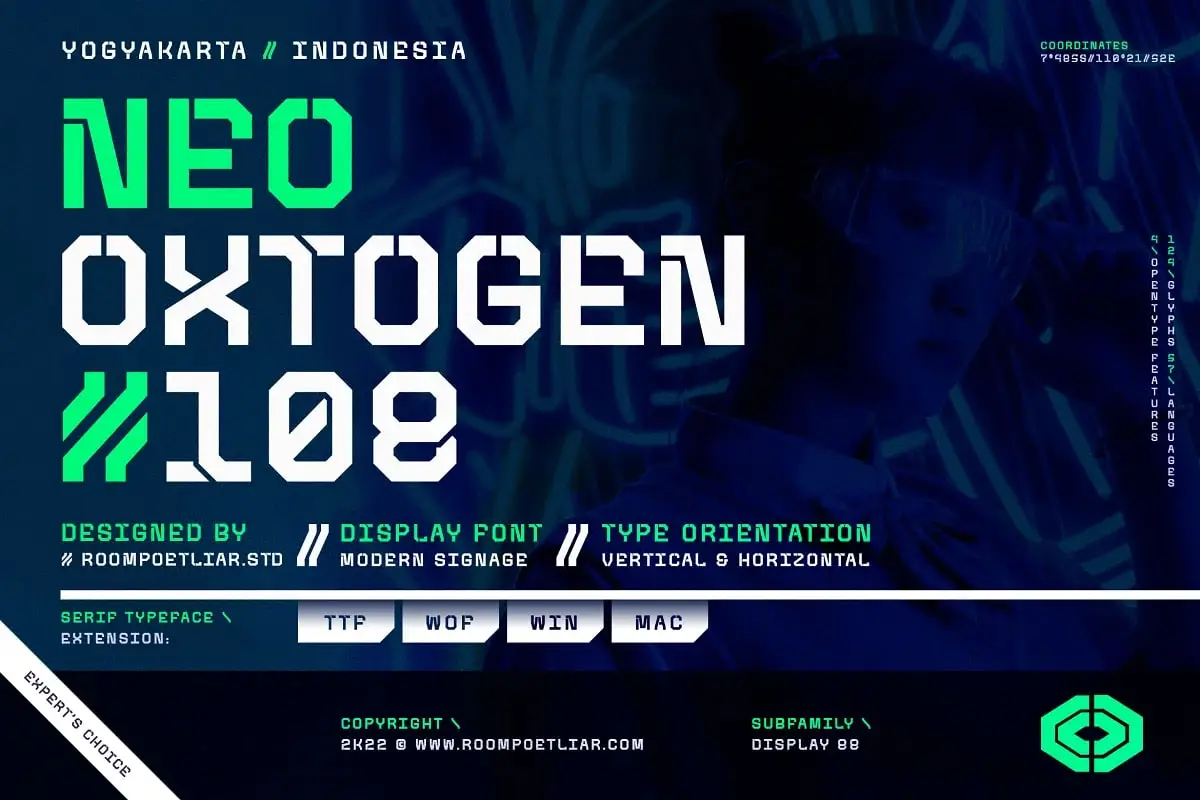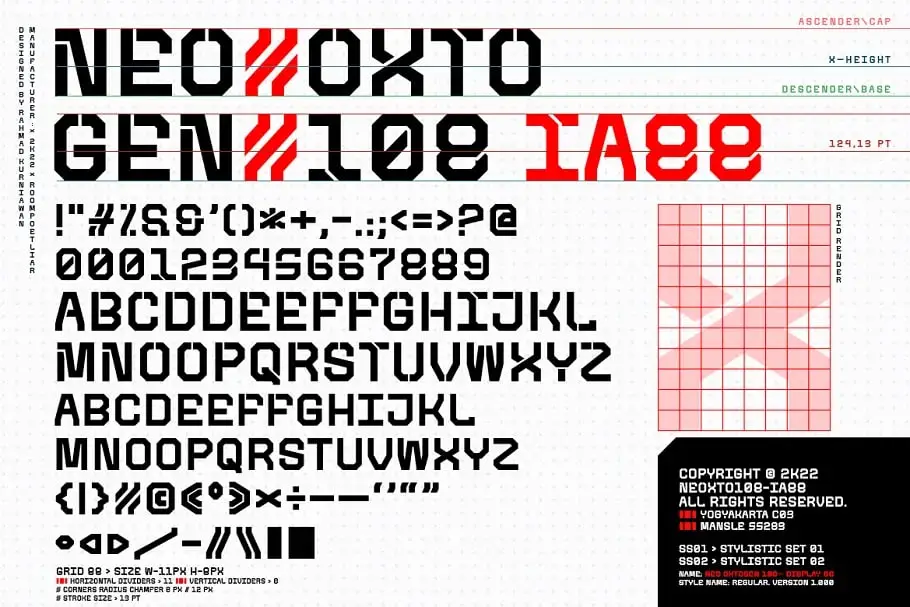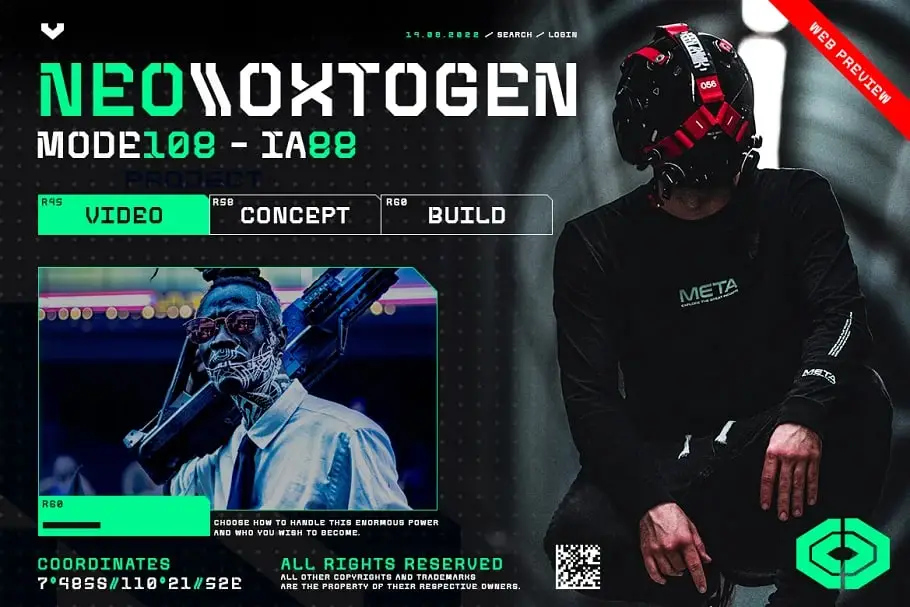
Neo-Oxtogen 108 Display Font By Rmpl.Std
Introducing the Neo-Oxtogen 108 Display Font by Rmpl.Std, a striking typeface designed to elevate your creative projects. This font features a modern display style, perfect for making bold statements in both print and digital media.
• Unique display design
• Style: Display
This font is ideal for branding, logos, headlines, and any project that requires a distinctive and modern touch.